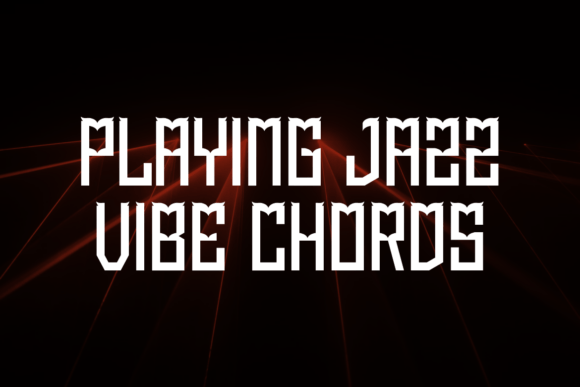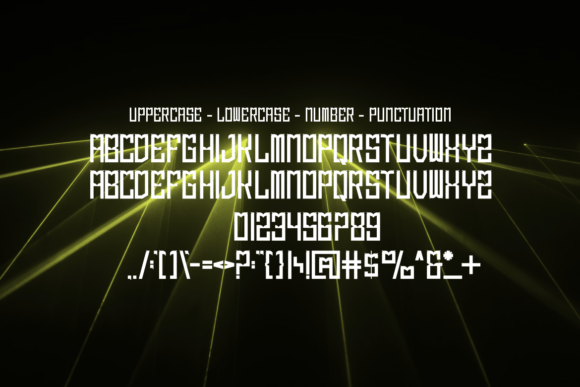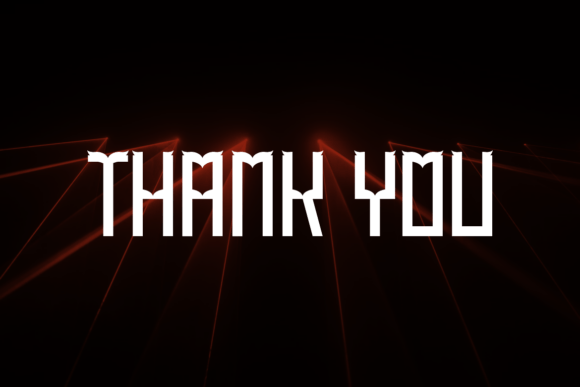
Introducing Grafakant Font: The Modern Display Font for Bold Designs
In the world of design, fonts play a crucial role in conveying messages, expressing creativity, and building brand identities. For designers and crafters, finding the perfect font can be a daunting task. However, with the introduction of Grafakant Font, a modern display font, your search can finally come to an end. In this article, we’ll explore the features, benefits, and uses of Grafakant Font, and why it’s a must-have for your design projects.
What is Grafakant Font?
Grafakant Font is a bold and authentic display font, designed to make a statement. Its modern and sleek design makes it perfect for a wide range of applications, from branding projects to creative products. The font’s unique style and charisma are sure to grab attention and leave a lasting impression.
Key Features of Grafakant Font
- Bold and Authentic: Grafakant Font is designed to be bold and authentic, making it perfect for headlines, titles, and emphasis text.
- Modern Design: The font’s modern design ensures that your designs look fresh and up-to-date.
- Versatile: Grafakant Font is versatile and can be used in a variety of contexts, including logos, t-shirt printing, and creative products.
- Easily Readable: Despite its bold design, Grafakant Font is easily readable, making it perfect for body text and captions.
Benefits of Using Grafakant Font
Using Grafakant Font in your design projects comes with numerous benefits. Some of the most significant advantages include:
- Unique Identity: Grafakant Font helps create a unique identity for your brand, setting you apart from the competition.
- Attention-Grabbing: The font’s bold design ensures that your message gets noticed, making it perfect for headlines and emphasis text.
- Flexibility: Grafakant Font can be used in a variety of contexts, making it a great addition to your font library.
- Time-Saving: With Grafakant Font, you can save time and effort in designing and re-designing your projects, as the font is easily adaptable to different contexts.
Use Cases for Grafakant Font
Grafakant Font is an incredibly versatile font that can be used in a wide range of applications, including:
- Logo Design: Use Grafakant Font to create bold and memorable logos that make a statement.
- T-Shirt Printing: The font’s bold design makes it perfect for t-shirt printing, ensuring that your message gets noticed.
- Creative Products: Grafakant Font can be used to create eye-catching designs for creative products, such as posters, flyers, and brochures.
- Branding Projects: Use Grafakant Font to create a consistent brand identity across all your branding projects.
Why Choose Grafakant Font?
With so many fonts available in the market, why choose Grafakant Font? Here are a few reasons why Grafakant Font stands out from the rest:
- High-Quality Design: Grafakant Font is designed with high-quality and attention to detail, ensuring that your designs look professional and polished.
- Unique Style: The font’s unique style and charisma ensure that your designs stand out from the competition.
- Easy to Use: Grafakant Font is easy to use and can be easily integrated into your design projects.
In conclusion, Grafakant Font is a modern display font that is perfect for designers and crafters looking for a bold and authentic font for their design projects. With its versatile design, attention-grabbing style, and ease of use, Grafakant Font is a must-have for any design project. Whether you’re working on a branding project, t-shirt printing, or creative products, Grafakant Font is sure to make a statement.